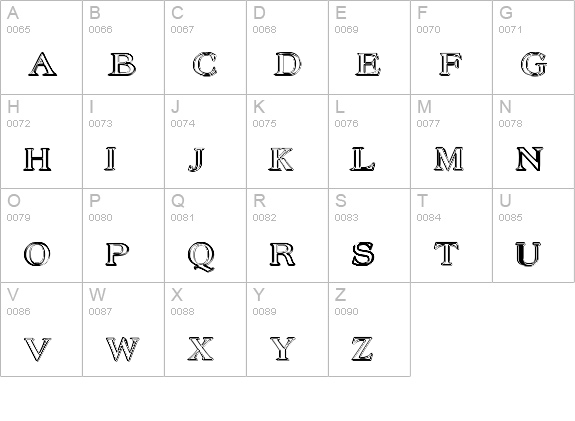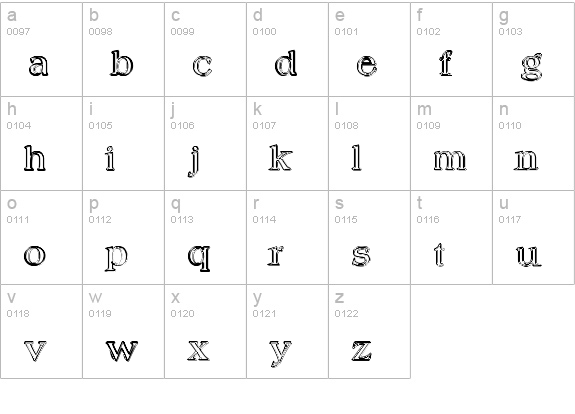
Hungover Outline font is a stylish and modern typeface perfect for adding a unique touch to your design projects. This font features a clean and elegant outline style that is ideal for creating eye-catching headlines, posters, logos, and more. With its sleek lines and contemporary look, Hungover Outline font is sure to make a statement. Best of all, Hungover Outline font is completely free to download at FontsMarket.com. So whether you're a designer looking to add a fresh font to your collection or a hobbyist looking to spice up your projects, this font is a fantastic choice. Don't miss out on the opportunity to elevate your designs with the effortlessly cool Hungover Outline font. Download it today and let your creativity shine!